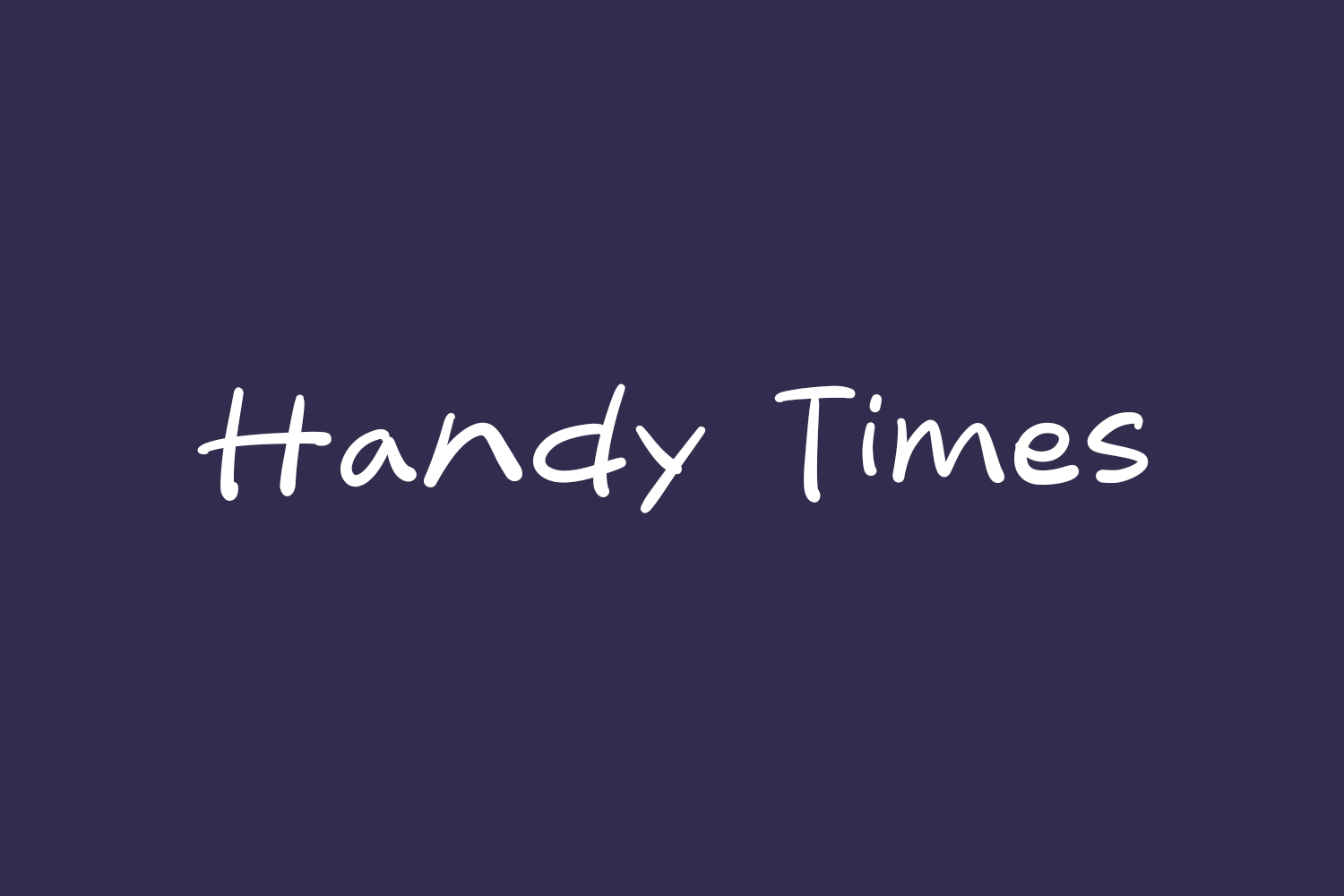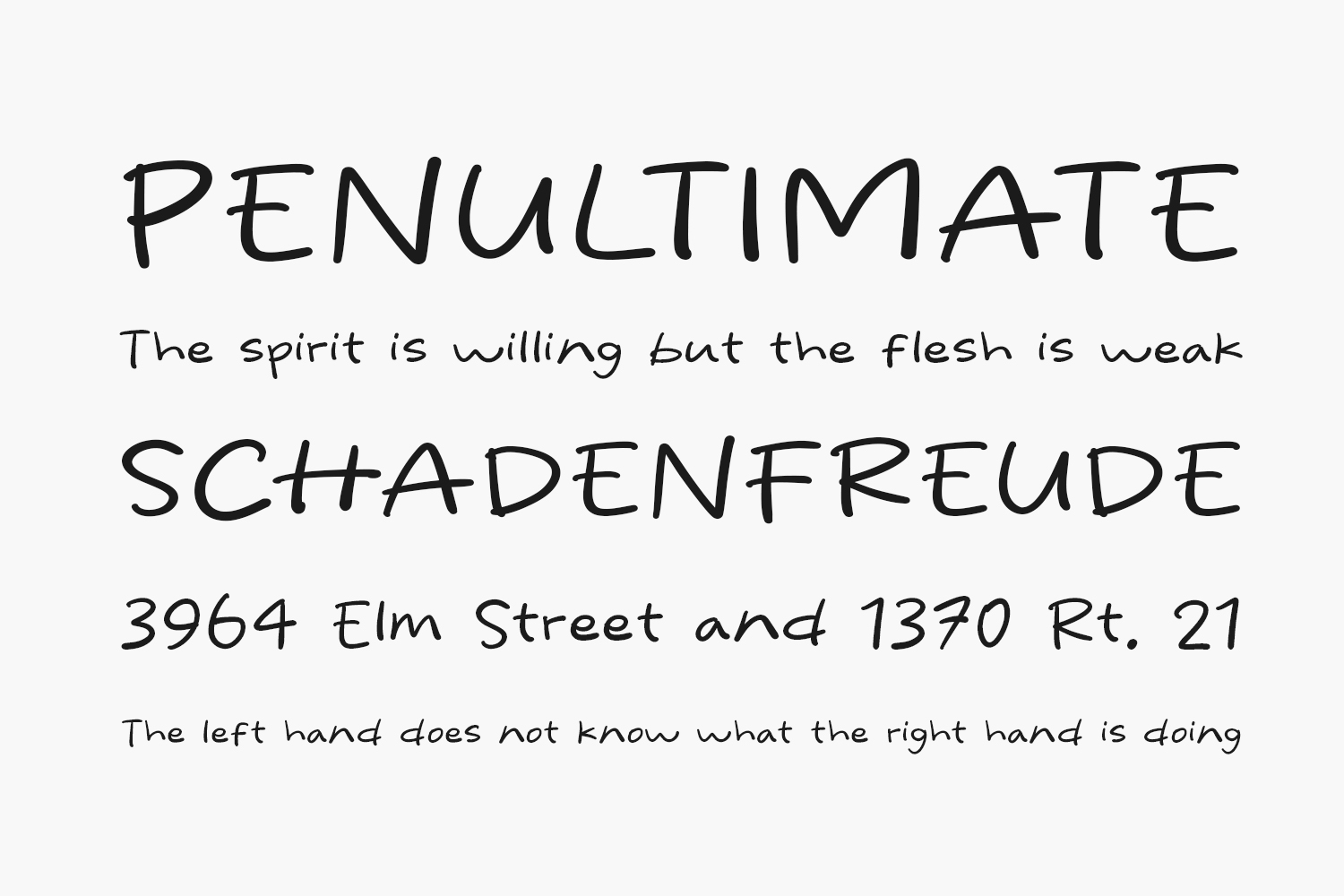
Handy Times Free Font offers a contemporary and elegant handwriting font, ideal for a myriad of projects including posters, logos, magazines, book covers, banners, and more! Elevate your designs with this remarkable font and experience its ability to effortlessly enhance a wide range of creative endeavors. Seamlessly adaptable to numerous projects, incorporating Handy Times into your creative arsenal guarantees an eye-catching finish that truly stands out. Download the font for free if you need it for personal or commercial use.